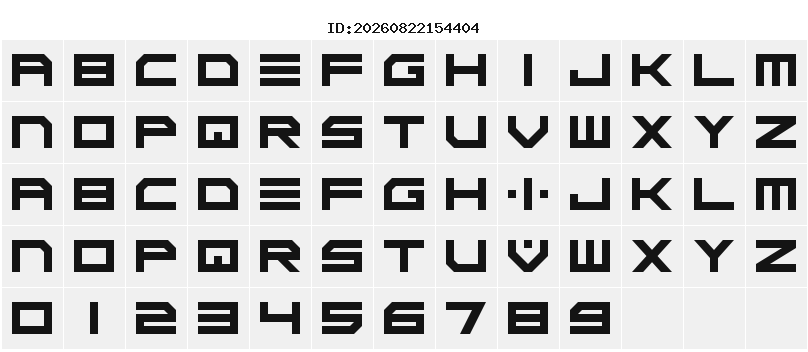
Scifi Adventure Preview
• Font Name: Scifi Adventure
• Full Font Name: Scifi Adventure
• Designer: Darrell Flood
About Scifi Adventure.otf
Scifi Adventure.otf is a modern, elegant sans-serif font designed for ultimate readability and visual harmony. Perfect for branding, headlines, web design, and print materials.